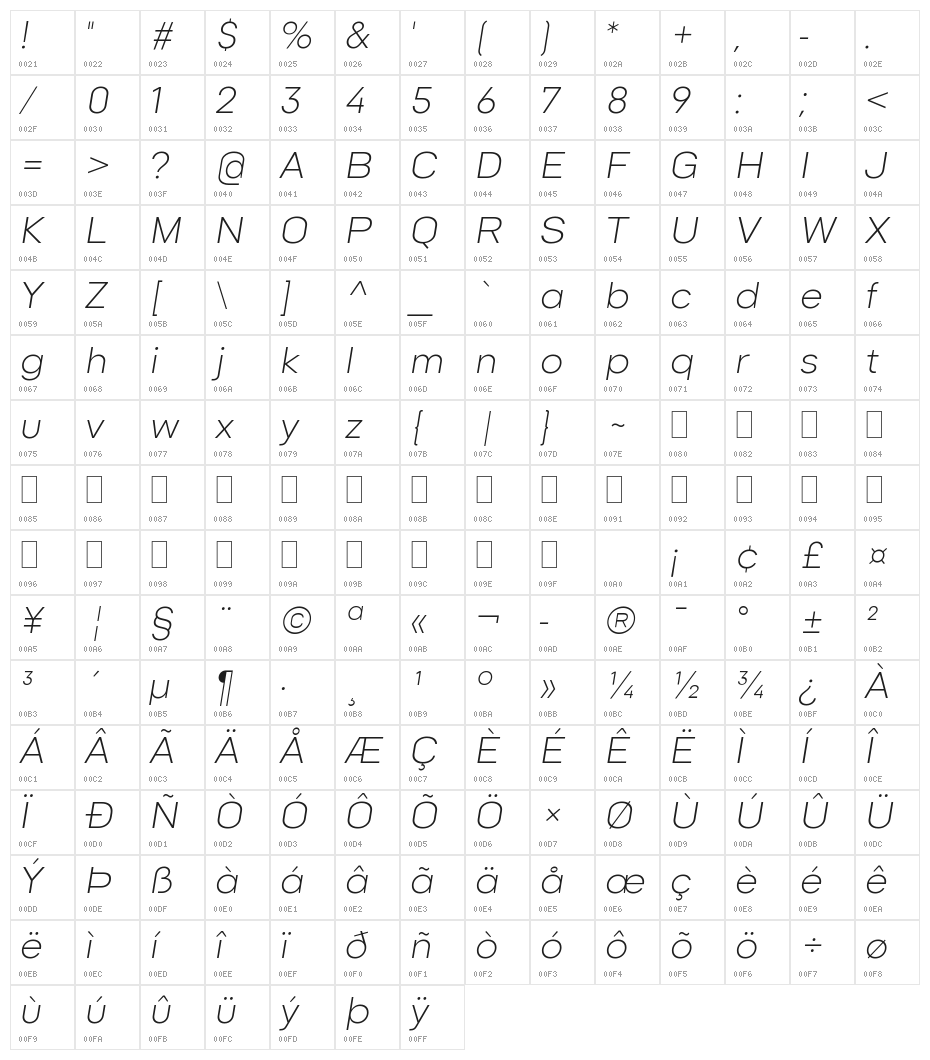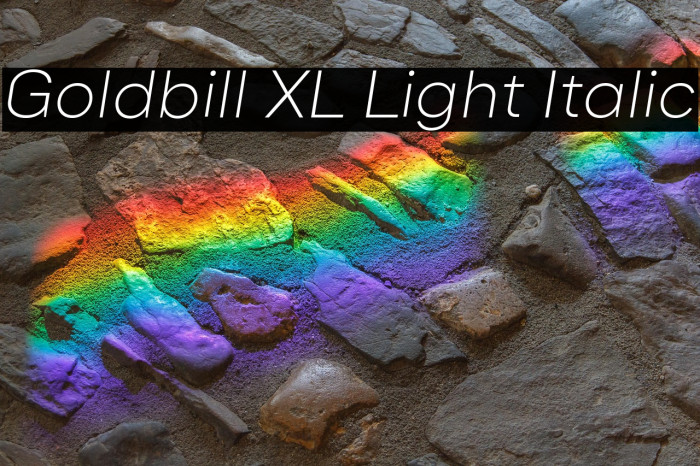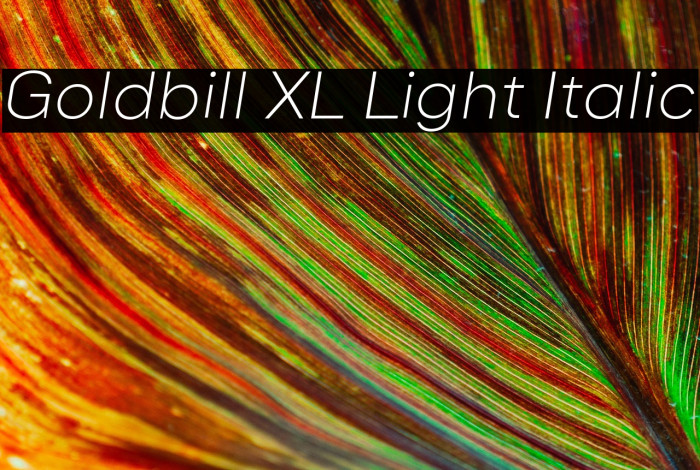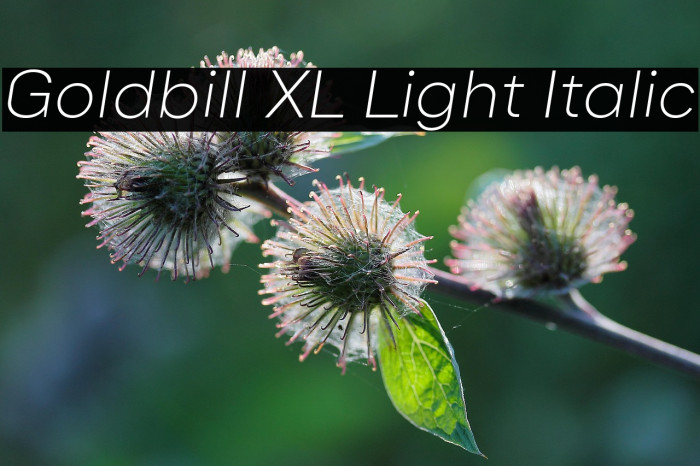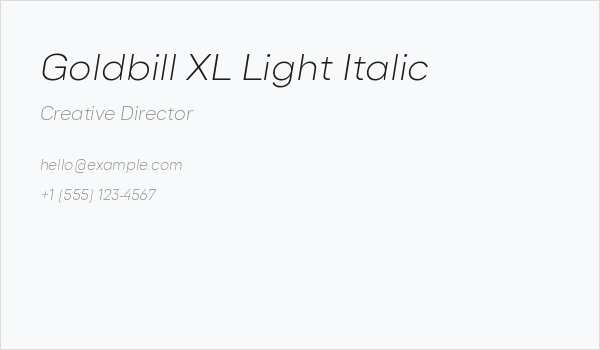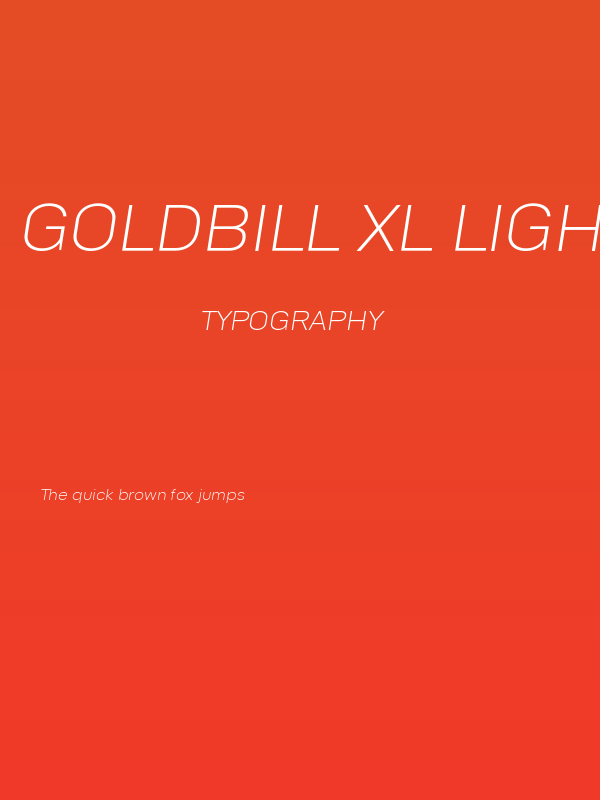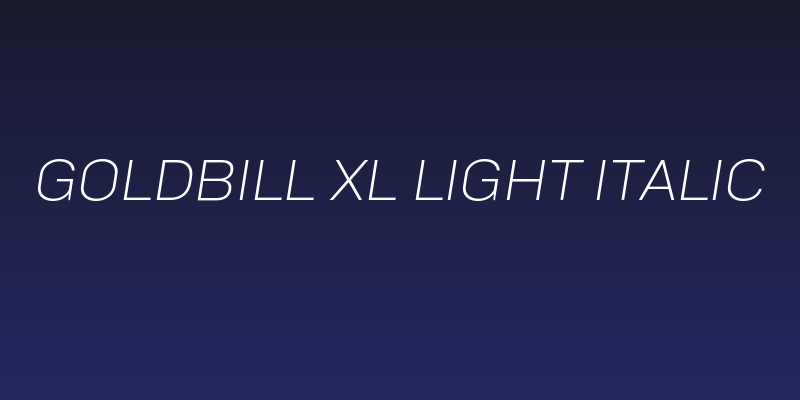
Goldbill XL Light Italic Font
Goldbill XL Light Italic Description
This font features a sleek and modern design with a light weight and italic style. The characters are elegantly crafted with smooth curves and a slight slant, giving it a sophisticated and contemporary appearance. The uppercase and lowercase letters maintain a consistent style, with a clean and minimalistic aesthetic. The numerals are well-proportioned, and the special characters are distinct and clear, making them easily recognizable. The overall design is airy and open, with ample spacing between characters, enhancing readability and visual appeal.